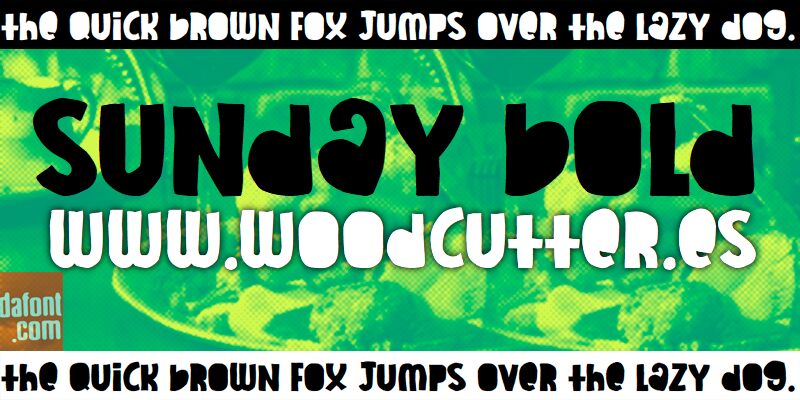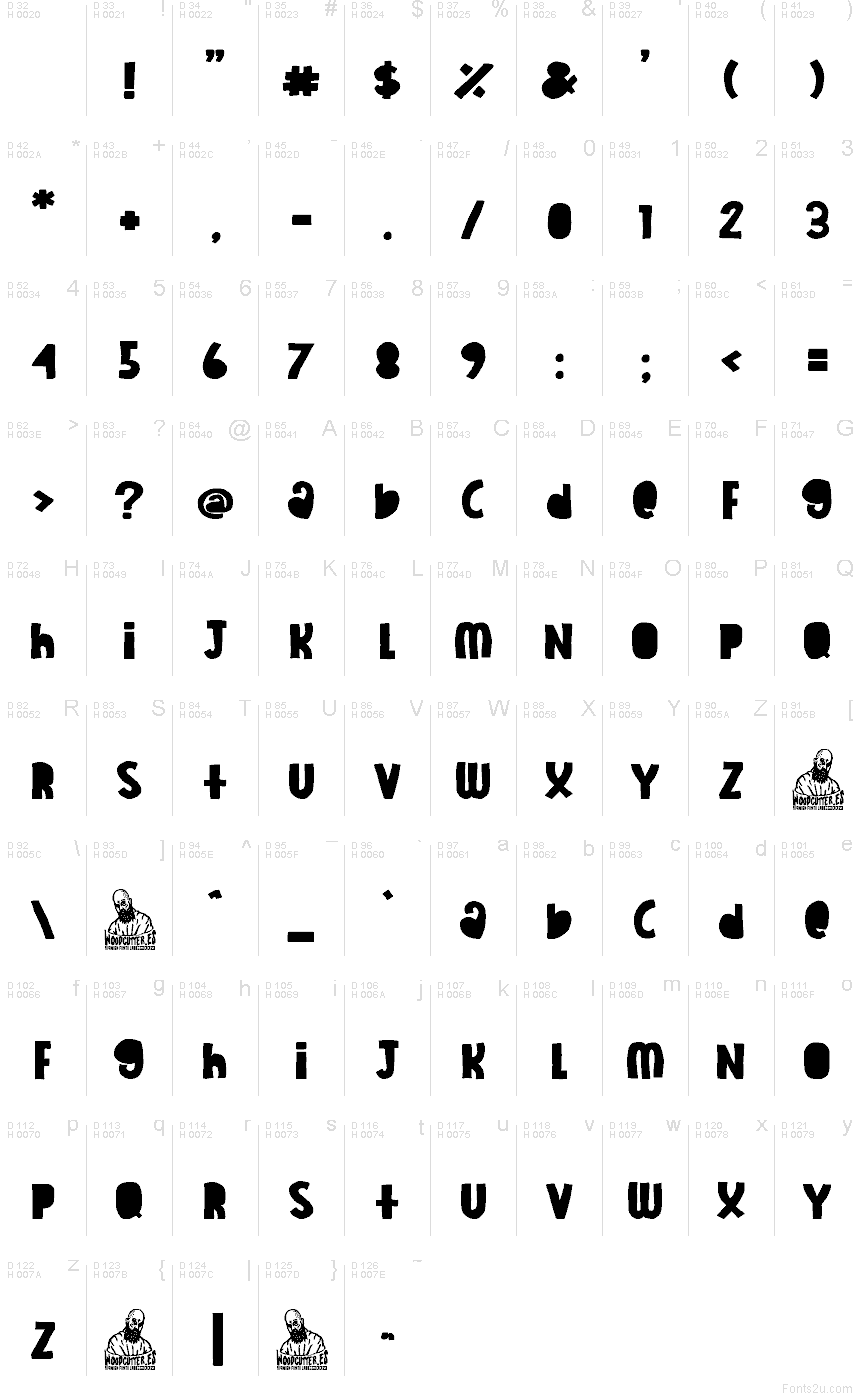
Sunday Bold
Sunday Bold font by Woodcutter is a free cartoon display typeface that feels like it’s been cut from thick black paper with a pair of scissors. The letters are chunky, loosely rounded, and a little wobbly, giving every word a hand-made, weekend-arts-and-crafts vibe. Its inky, uneven edges pull the eye instantly, so even a short word looks loud, friendly, and full of character.
Using Sunday Bold, headlines snap into place on kids’ book covers, posters, birthday invitations, school projects, game titles, and playful branding. This free font shines when you keep it big and bold, letting the solid shapes and quirky rhythm do the talking. For balance, pair Sunday Bold with a clean geometric sans for body text and let this cartoon typeface handle the fun, shouty parts of your layout.